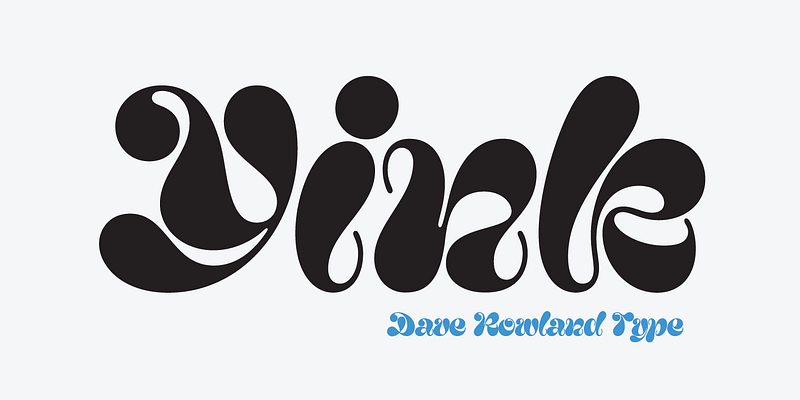
Yink Font Free Download is a bold and expressive display serif typeface that mixes high contrast with quirky, organic curves. Designed to make a statement, Yink is perfect for editorial headlines, branding, posters, packaging, and any project that aims to be stylish, artistic, and unique.
Yink stands out for its unconventional shapes—combining vintage inspiration with contemporary edge. Its playful personality and strong visual identity make it ideal for creative professionals who want their typography to be as memorable as their message.